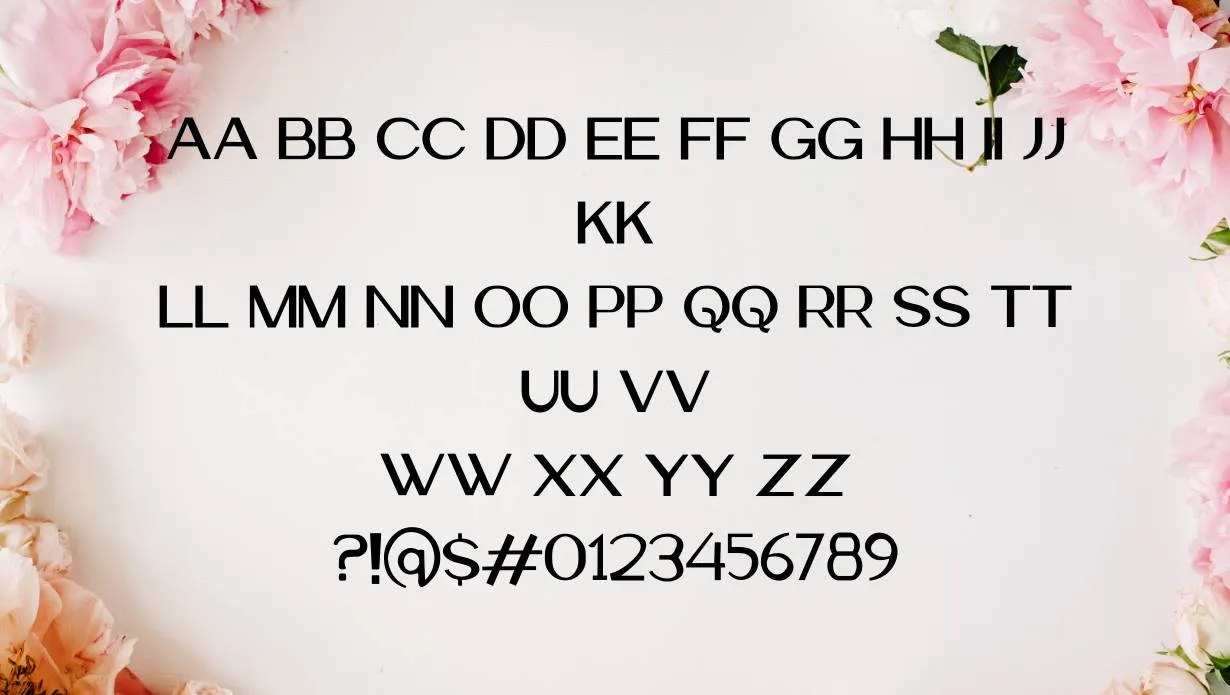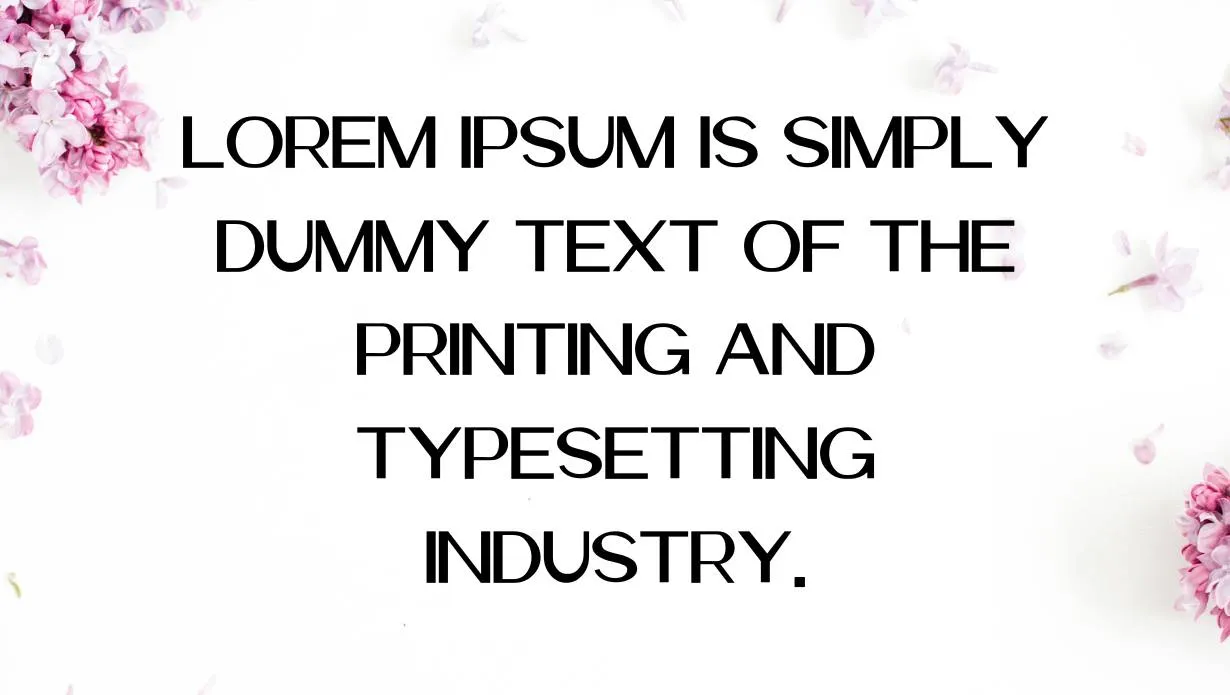
Ganama Font was created by Rahman Alif. The use of this font gives almost every design a substantial look, so it would be an ideal choice for big-text projects. There is no doubt that this Sans serif typeface is very popular among designers and people use it for their tasks due to its soft and unique look.
It has been used by many professionals to design websites in the past. When you create your next website, you can incorporate the actual font or any of its weights and versions, which will add a stylish and appealing touch to the design.
Ganama Font Family
| Name | Ganama Font |
| Designer | Rahman Alif |
| Style | Sans serif |